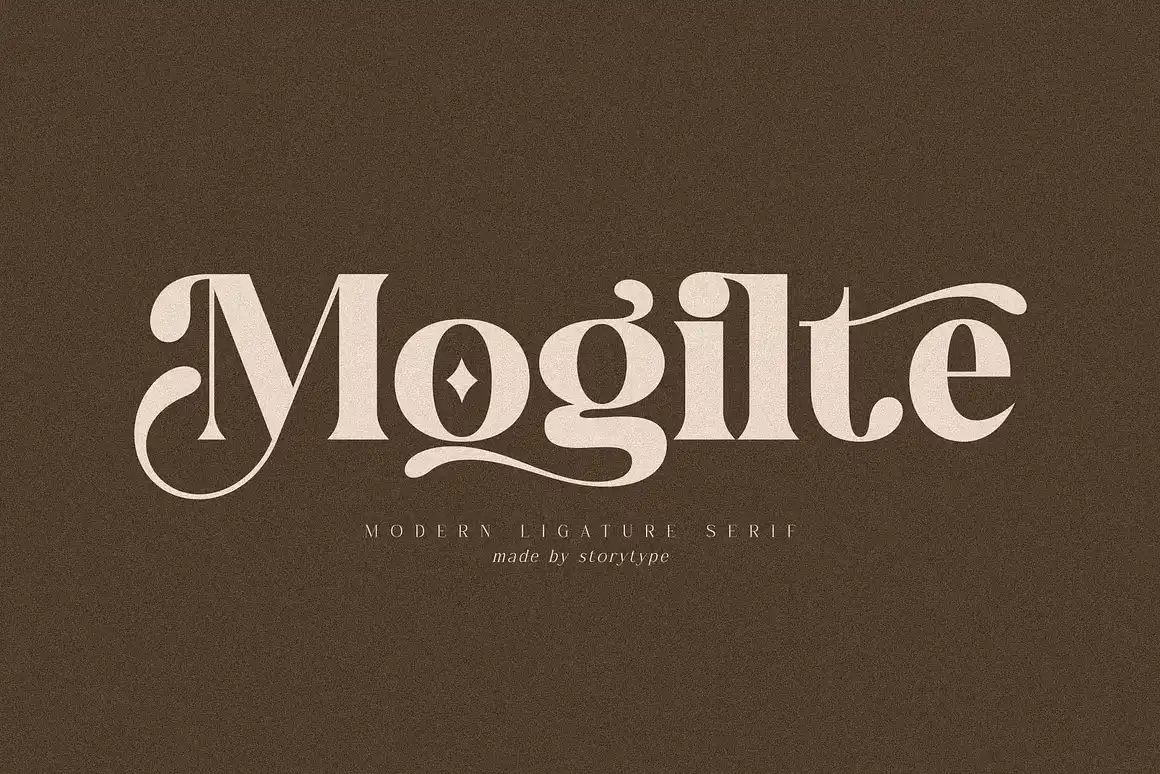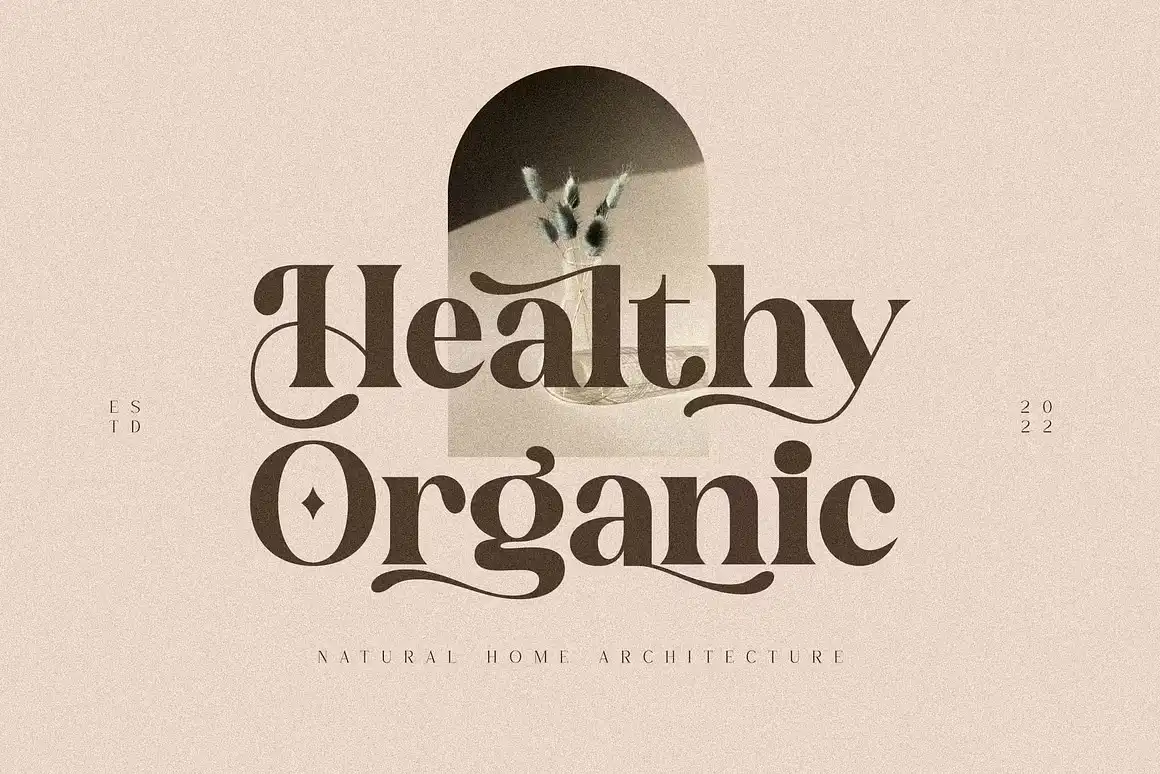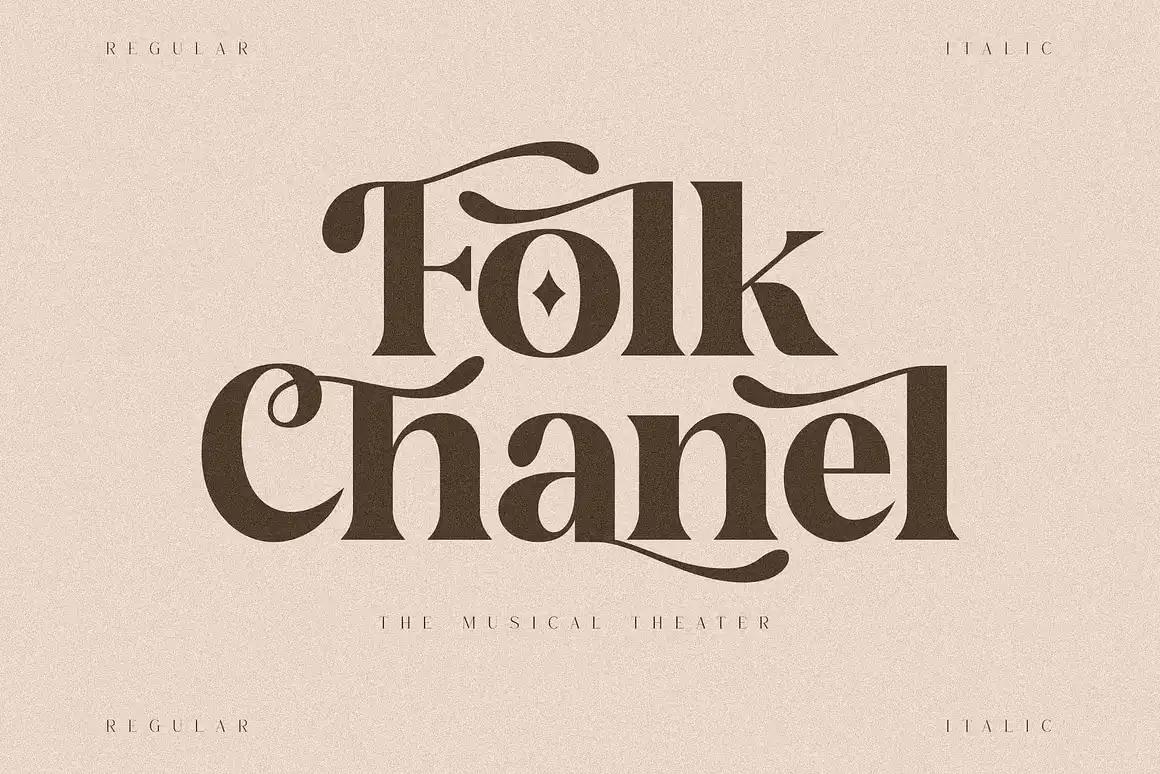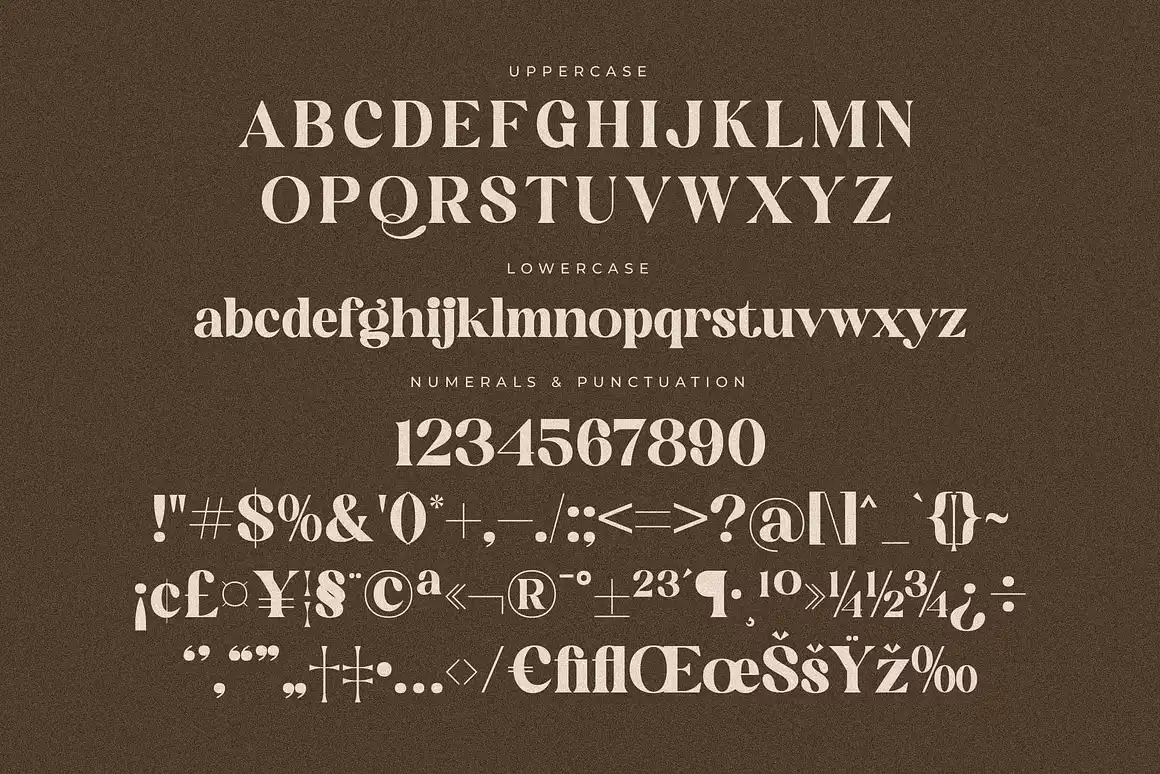
Mogilte Font
About Mogilte Font
As a typographer and graphic designer, I’m always searching for fonts that balance elegance and personality. While working on a luxury branding project, I came across the Mogilte Font, a modern serif with a timeless charm. After a quick Mogilte Font Free Download, I tested it across multiple logo concepts and packaging layouts.
The result instantly stood out. It gave the project a sense of class without feeling outdated. I’m reviewing this font because it genuinely impressed me during real client work. It’s not just another typeface; it’s a tool that can transform how your design feels and communicates.
The Font and Its Designer
The Mogilte Font is a modern classic serif font designed by Storytype Studio, a name known for creating fonts that merge sophistication with function. This serif typeface features clean lines and refined details that give it a luxury appeal while keeping it practical for real-world design use. Each letter carries purpose, with strong structure and smooth balance that work beautifully for logos, magazines, and fashion brands.
Unlike many free fonts, Mogilte doesn’t look generic. The subtle curves and high-contrast strokes create a feeling of confidence and class. You’ll notice how well it handles spacing, especially in headings and logos. This balance between elegance and readability makes it one of the more distinct options available for personal use or mockups.
When you discover Mogilte typeface, it immediately feels like something designed for professionals. It fits both book or movie titles and digital visuals, giving you flexibility across multiple mediums. Whether you use it for desktop layouts or motion graphics, the results stay polished. Storytype Studio deserves credit for crafting a serif font that feels timeless yet distinctly contemporary. The Mogilte serif font brings sophistication to any project that values style and balance.
Key Features of Mogilte Font
The Mogilte Font stands out for its graceful typeface structure and luxury-inspired design. Each character flows naturally, maintaining a perfect balance between classic proportion and modern minimalism. This creates a look that’s both elegant and functional. It’s a serif font that delivers beauty without sacrificing clarity.
The distinct style of Mogilte makes it shine in luxury branding, fashion campaigns, and magazine covers. The contrast between thick and thin strokes adds rhythm, while its clean serifs enhance legibility. You can use it confidently in professional logos, quotes, or visual identity systems. Whether you’re working on a motion graphics intro or a book or movie title, Mogilte gives your work a premium touch.
It’s also a stylish serif typeface that blends into multiple visual directions. You can pair it with minimalist sans-serif fonts or let it stand alone for a more statement look. With its distinct style, Mogilte brings subtle authority to every project it touches.
The Mogilte Font fits beautifully in high-end design projects that demand sophistication. I’ve personally used it in branding and logo creation for a fashion client, and it performed flawlessly. It works just as well in magazines, editorial layouts, and ebooks where typography sets the tone.
You can also use it for book or movie titles, digital advertisements, or social media templates that need a polished look. The Mogilte serif font holds up perfectly across desktop and web platforms, making it ideal for motion graphics and digital interfaces.
For graphic designers, this typeface provides a dependable option that feels both classic and contemporary. Its luxury tone makes it especially suitable for brands in beauty, lifestyle, and fashion. It also adds elegance to quotes, posters, and product packaging.